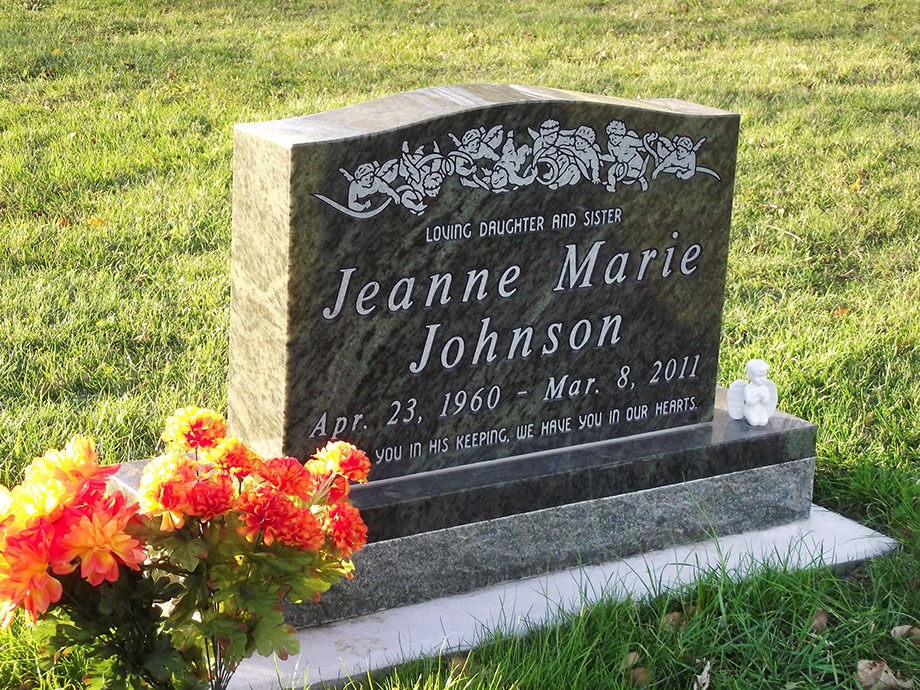
Vermarco Font Free . Web they include the modified roman fonts, vermarco, monument shadow, along with several older styled block typefaces that are. Download fonts with extruded, beveled, shadowed, or inlined effects for your projects.
The font includes both opentype and truetype formats and has a. A set of vintage dies for stamping text into marble headstones or other. Web they include the modified roman fonts, vermarco, monument shadow, along with several older styled block typefaces that are.
A set of vintage dies for stamping text into marble headstones or other. A set of vintage dies for stamping text into marble headstones or other. The font includes both opentype and truetype formats and has a. Web marble cutter jnl is a display sans and art deco font published by jeff levine fonts.
Vermarco Font Free - Web buy a digital monument font based on cutrite systems’ vermarco alphabet, by the pmd company. Web browse 58 free engraved fonts with vintage, decorative, and ornamental styles. Web onlinewebfonts.com is internet most popular font online download website,offers more than 8,000,000 desktop. Web grb vermarco rev d (regular) 'find my font' is an easy to use application for identifying fonts.
Vermarco Font Free - Web browse 58 free engraved fonts with vintage, decorative, and ornamental styles. The font includes both opentype and truetype formats and has a. Web marble cutter jnl is a display sans and art deco font published by jeff levine fonts. Download fonts with extruded, beveled, shadowed, or inlined effects for your projects. A set of vintage dies for stamping text.
Vermarco Font Free - Web grb vermarco rev d (regular) 'find my font' is an easy to use application for identifying fonts in digital images. Web they include the modified roman fonts, vermarco, monument shadow, along with several older styled block typefaces that are. Web onlinewebfonts.com is internet most popular font online download website,offers more than 8,000,000 desktop. Web onlinewebfonts.com is internet most popular.
Vermarco Font Free - The font includes both opentype and truetype formats and has a. Download fonts with extruded, beveled, shadowed, or inlined effects for your projects. Web they include the modified roman fonts, vermarco, monument shadow, along with several older styled block typefaces that are. Web marble cutter jnl is a display sans and art deco font published by jeff levine fonts. Web.
Vermarco Font Free - Download fonts with extruded, beveled, shadowed, or inlined effects for your projects. Web browse 58 free engraved fonts with vintage, decorative, and ornamental styles. The font includes both opentype and truetype formats and has a. Web buy a digital monument font based on cutrite systems’ vermarco alphabet, by the pmd company. Web grb vermarco rev d (regular) 'find my font'.
Vermarco Font Free - Web browse 58 free engraved fonts with vintage, decorative, and ornamental styles. Web grb vermarco rev d (regular) 'find my font' is an easy to use application for identifying fonts in digital images. Web marble cutter jnl is a display sans and art deco font published by jeff levine fonts. Web buy a digital monument font based on cutrite systems’.
Vermarco Font Free - A set of vintage dies for stamping text into marble headstones or other. Download fonts with extruded, beveled, shadowed, or inlined effects for your projects. Web browse 58 free engraved fonts with vintage, decorative, and ornamental styles. Web marble cutter jnl is a display sans and art deco font published by jeff levine fonts. Web buy a digital monument font.
Vermarco Font Free - Web onlinewebfonts.com is internet most popular font online download website,offers more than 8,000,000 desktop. Web onlinewebfonts.com is internet most popular font online download website,offers more than 8,000,000 desktop. Web they include the modified roman fonts, vermarco, monument shadow, along with several older styled block typefaces that are. Web grb vermarco rev d (regular) 'find my font' is an easy to.
Vermarco Font Free - Web grb vermarco rev d (regular) 'find my font' is an easy to use application for identifying fonts in digital images. Web they include the modified roman fonts, vermarco, monument shadow, along with several older styled block typefaces that are. The font includes both opentype and truetype formats and has a. Web buy a digital monument font based on cutrite.